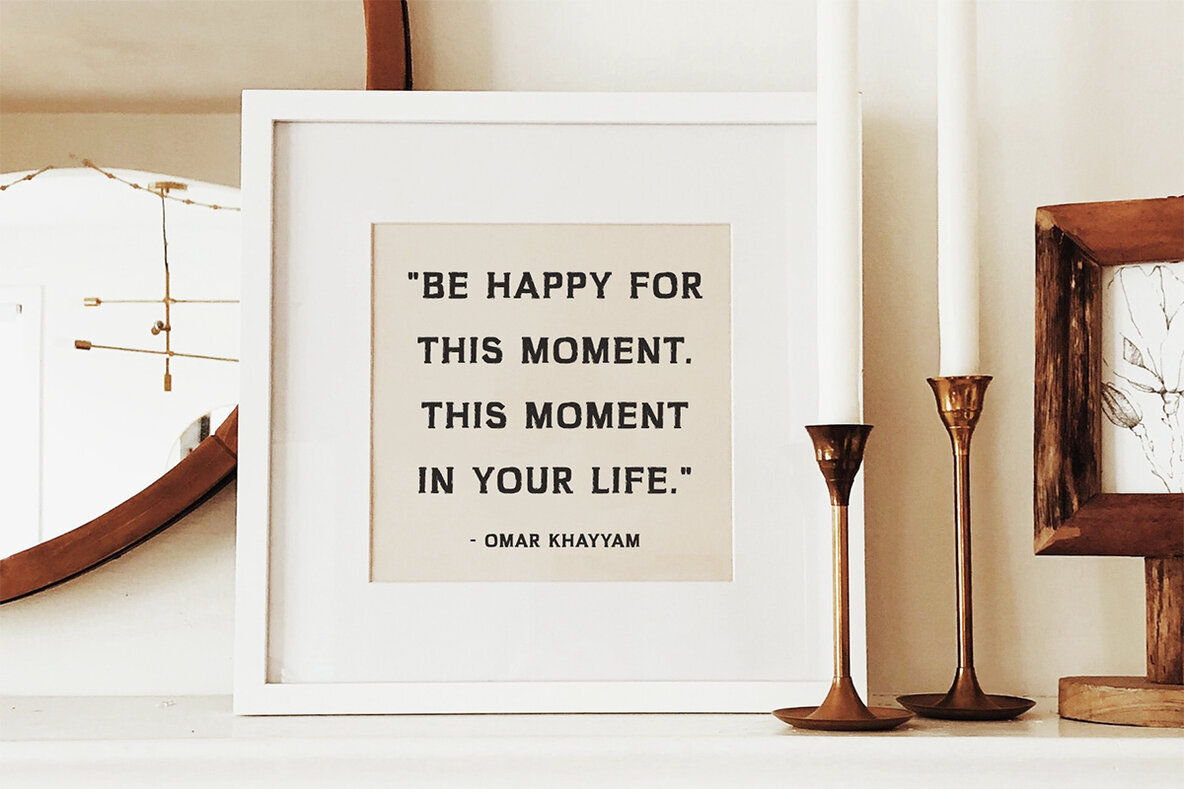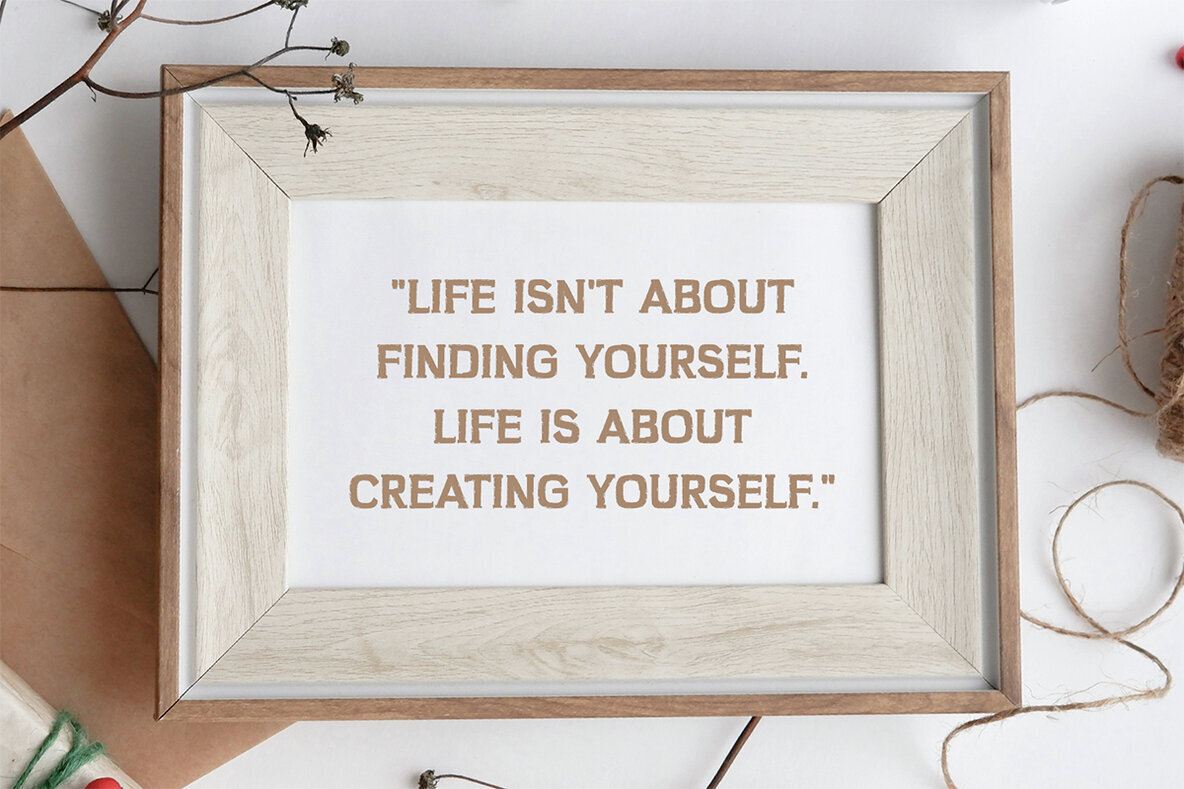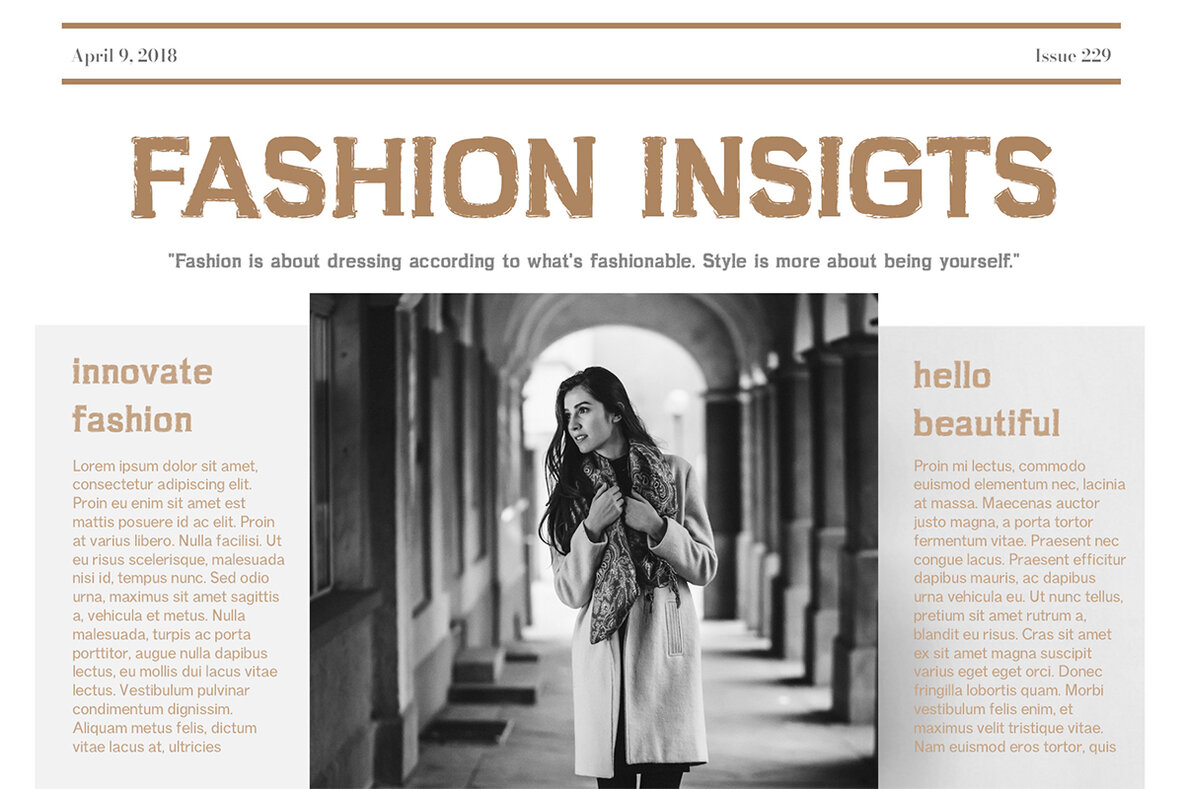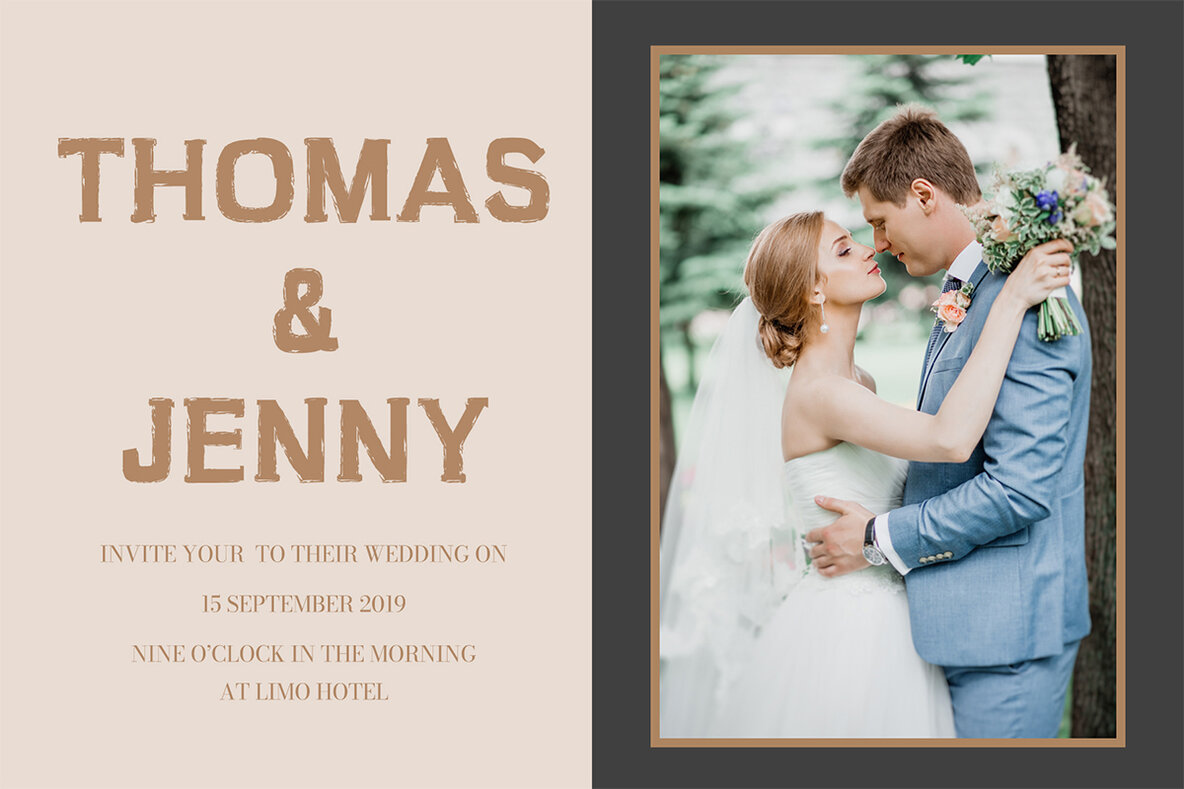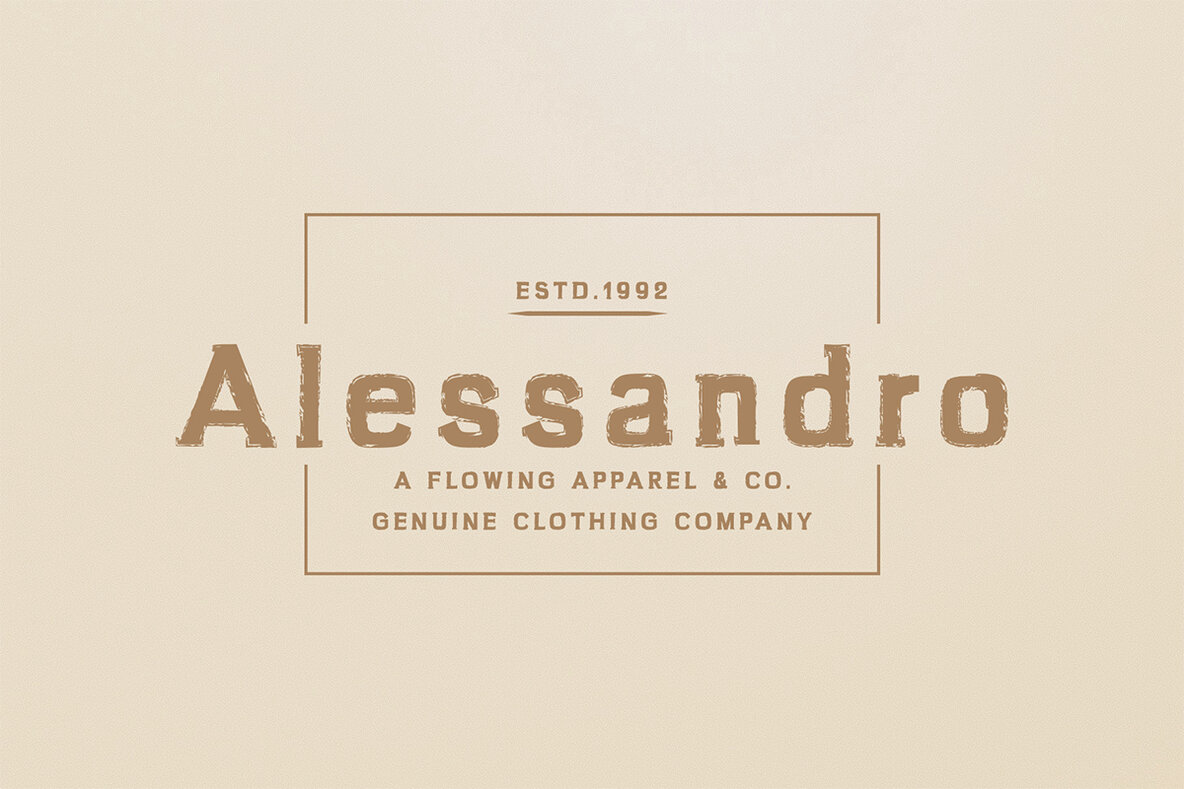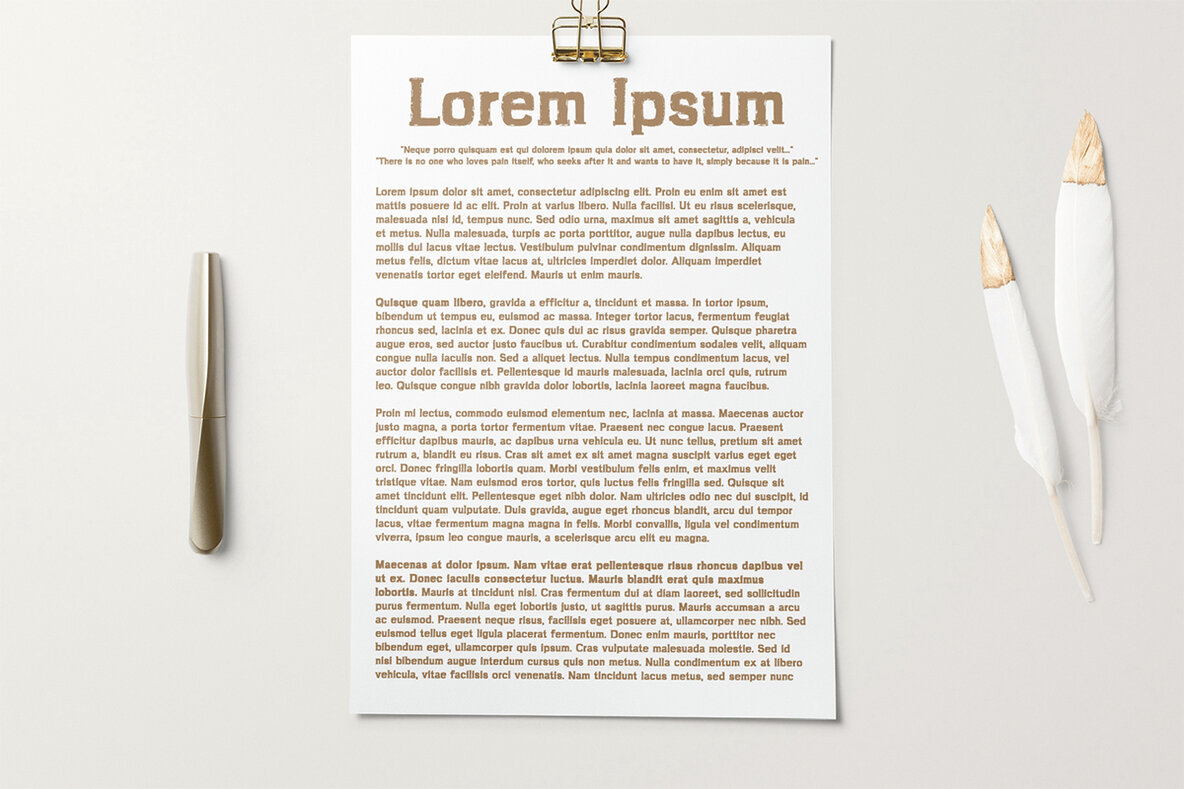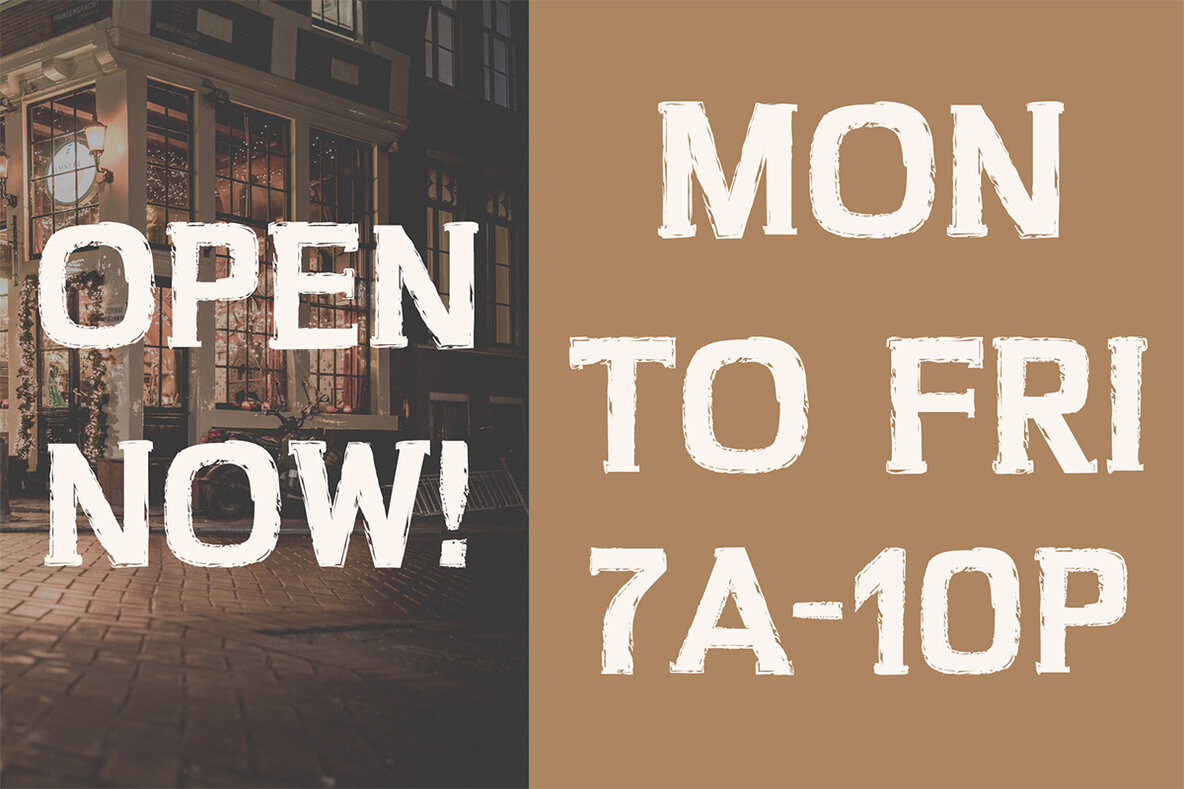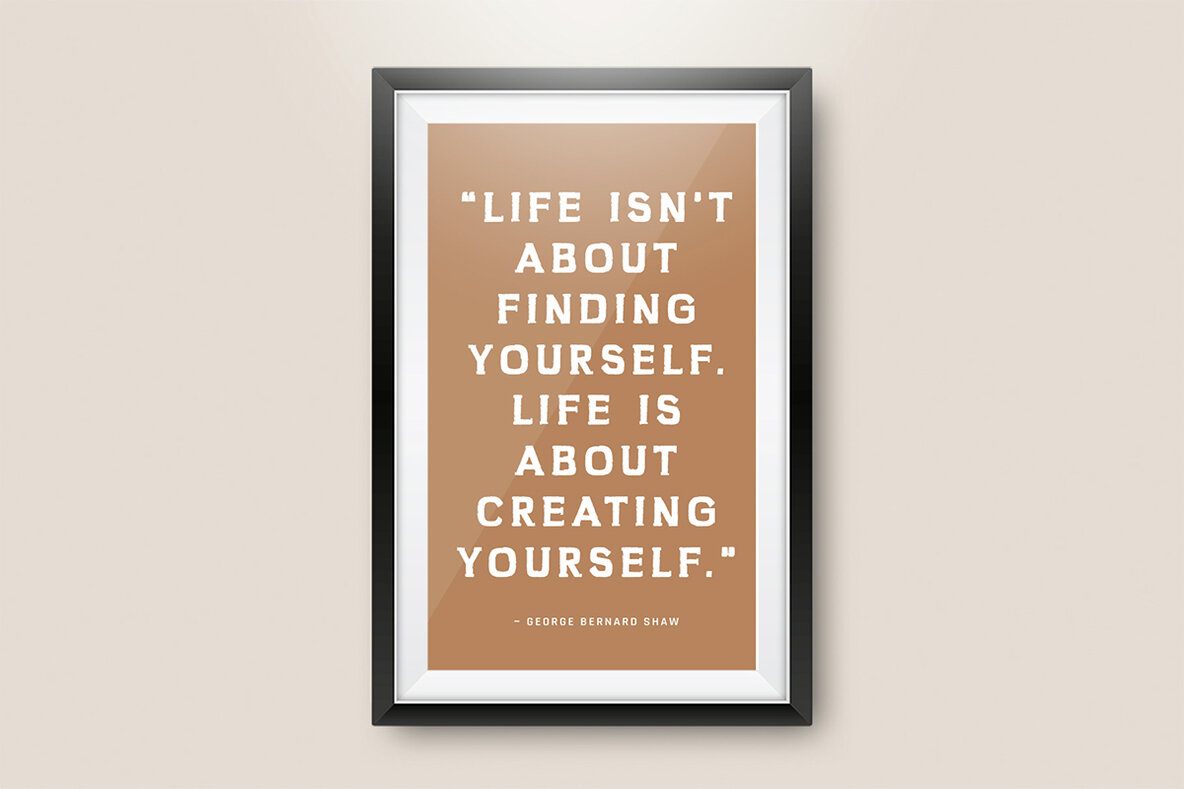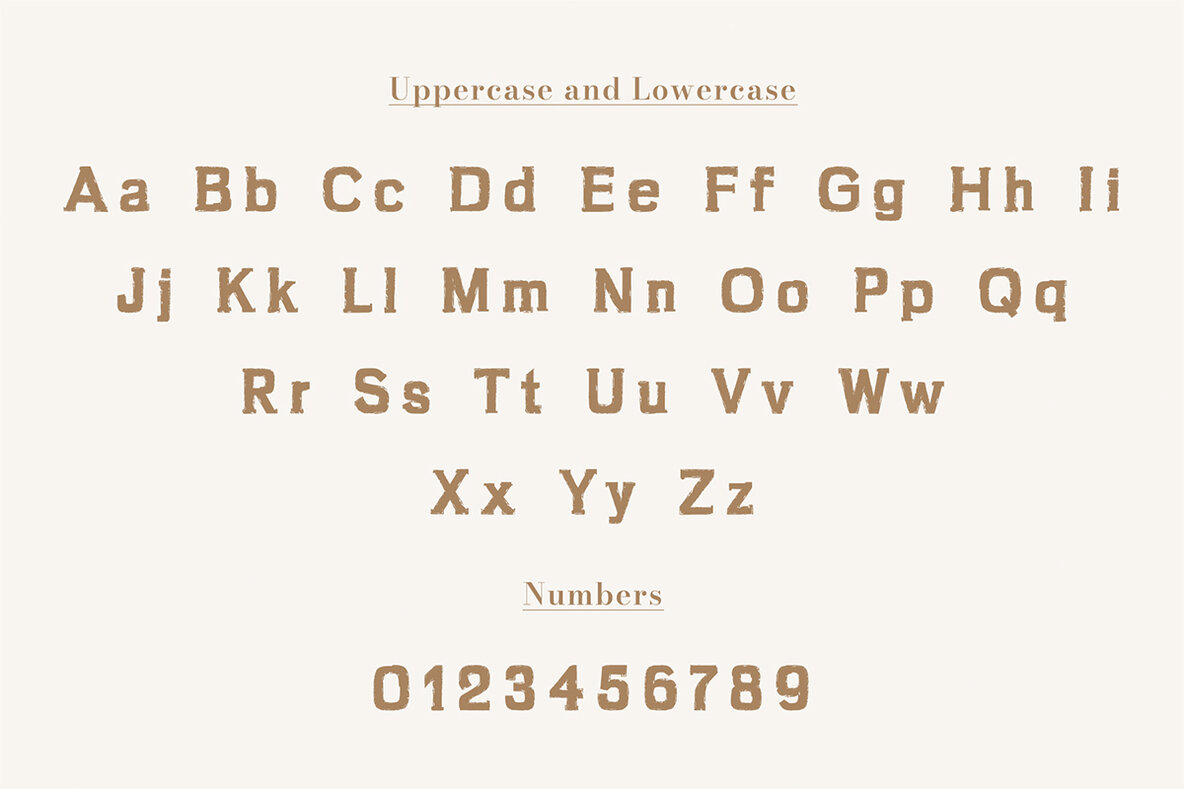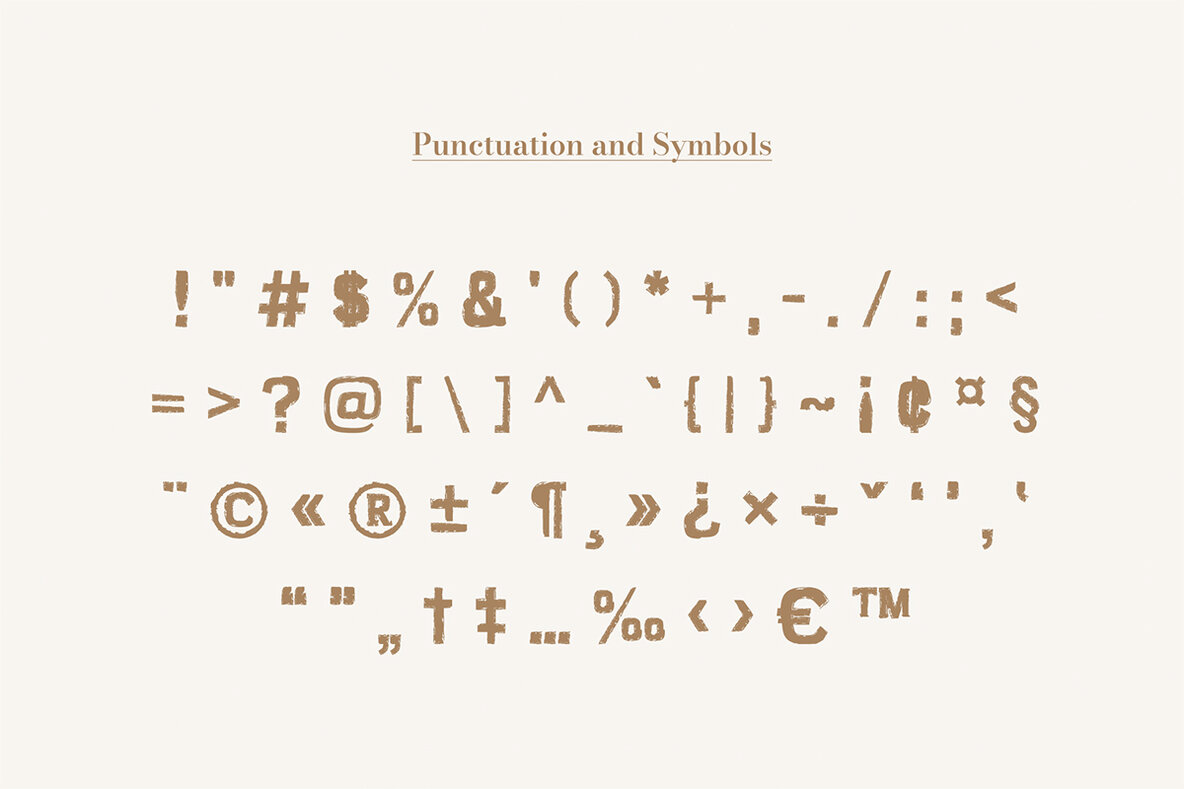
Omran Font
Omran Regular
Omran Brush Font offers a striking, decorative touch combined with a contemporary flair. This handcrafted font features uppercase and lowercase letters, numbers, punctuation, and symbols, making it a versatile choice for various design projects. Supporting multiple languages, Omran Brush Font is ideal for packaging, branding, headlines, posters, web layouts, invitations, and more. The font’s unique personality ensures your work stands out in any creative context.
Designed to meet the needs of professional designers, Omran Brush Font includes an extensive range of supported characters, from A-Z and 0-9 to a wide array of punctuation marks and special characters. Whether used for logos, quotes, presentations, or magazine headlines, this font adds a distinctive and eye-catching appeal to all your design efforts.